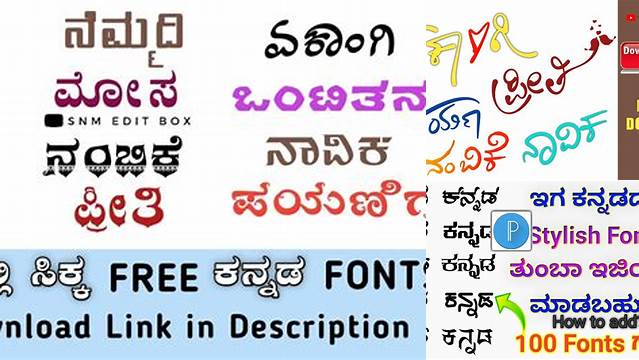
Kannada Stylish Fonts: Copy & Paste For Stunning Designs
Hey there, design enthusiasts and Kannada language lovers! Are you looking to spice up your text with some seriously stylish Kannada fonts? Well, you've come to the right place! This article is your one-stop shop for everything related to Kannada stylish fonts: copy and paste functionality. We'll dive deep into the world of cool Kannada fonts, showing you how to easily copy and paste them into your designs, and explore where you can use them. So, get ready to transform your everyday text into eye-catching masterpieces that will make your content pop! Let's get started, shall we?
Why Use Kannada Stylish Fonts? The Power of Visual Language
Kannada stylish fonts add a unique flair and personality to your text, making it stand out from the crowd. Imagine your social media posts, website content, or even your personal messages – now imagine them written in a font that's not only readable but also visually stunning. That's the power of stylish fonts! They can evoke emotions, create a specific mood, and make your content more memorable. When it comes to the Kannada language, which has a rich history and beautiful script, using stylish fonts is even more crucial. It's about preserving the cultural heritage while also giving your digital content a modern and appealing look. Using stylish Kannada fonts can help you:
- Increase Engagement: Catch the eye of your audience with visually appealing text, encouraging them to read and interact with your content. Think of those captivating Instagram captions or the intriguing headlines of your blog posts; a unique font can grab the attention of your target audience at a glance.
- Enhance Branding: Create a consistent brand identity by using specific fonts that reflect your company's personality and values. It gives a unique touch to your brand. The fonts chosen will speak about you.
- Express Creativity: Break free from the monotony of standard fonts and experiment with different styles to add a touch of creativity to your designs. You're no longer limited to just the plain, standard fonts! Get your creative juices flowing by using a font that makes you happy.
- Cultural Preservation: Promote the Kannada language and its beauty by using stylish fonts that celebrate its unique script. It's a great way to promote your culture to others.
Where to Find Awesome Kannada Fonts (Copy and Paste Ready!)
Alright, now for the good stuff! Finding Kannada stylish fonts is easier than you might think. Several websites and resources offer a wide variety of fonts that you can copy and paste directly into your designs. Here are some of the best places to find them:
- Other Font Websites: Explore other font websites that specialize in regional languages or offer a wide range of font styles. Searching for "Kannada fonts" or "stylish Kannada fonts" should get you started. There are a lot of websites to choose from; just make sure they are legitimate to avoid any issues.
Remember to always check the font license before using any font. Some fonts are free for personal use but require a license for commercial projects.
How to Copy and Paste Kannada Stylish Fonts
So, you've found some cool Kannada fonts you want to use. Now, let's talk about how to copy and paste them into your designs. It's a simple process, really! Here's a step-by-step guide:
- Choose Your Font: Select the Kannada font you want to use. Make sure it's installed on your computer or available on the website you're using. Some websites allow you to type in a text box and see the font in action before you download or copy it. This is a great way to test the font's look.
- Type or Find Your Text: Type the text you want to convert to the stylish Kannada font. If you're using an online font generator, you can type it directly into the text box. If the font is installed, you can type it in any text editor or design software. The options are endless!